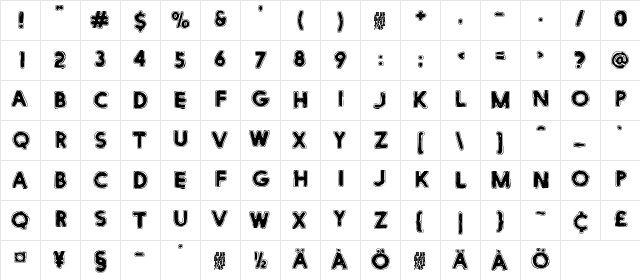
White Submarine Regular
Design Context for White Submarine Typeface
White Submarine takes a measured approach to typography — its balanced proportions and neutral character make it a reliable workhorse for both digital and print work.